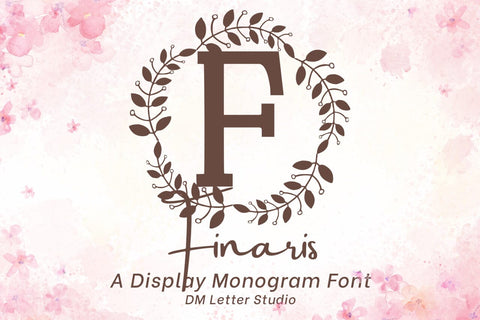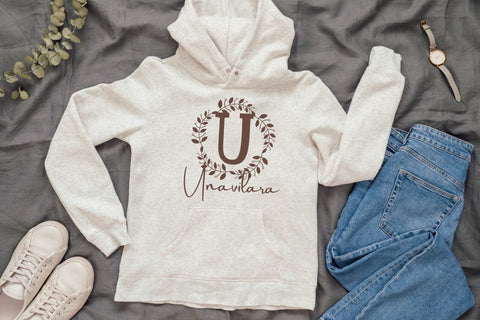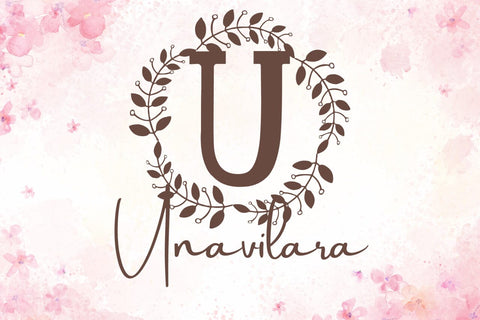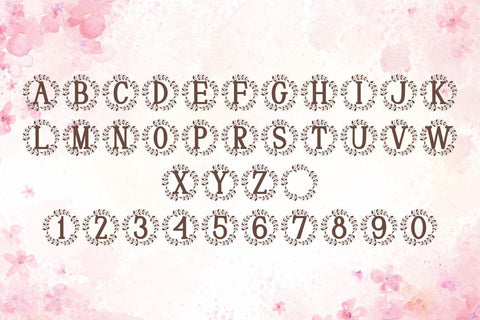
Finaris Monogram Font
Meet Finaris, the Monogram Font
Finaris Monogram Font turns simple initials into refined emblems that read fast at any size. Strokes feel smooth and confident. Counters stay open, so tiny tags and foil seals look crisp. Use it for wedding suites, boutique logos, keepsake gifts, and premium packaging. Moreover, Finaris pairs beautifully with modern serifs and clean sans fonts, so your layouts feel elegant with little effort.
Where the monogram font shines
Set single, double, or triple initials for logos, seals, menus, and place cards. Then frame them with laurel rings, oval borders, or thin rules to echo the graceful forms. Since proportions favor symmetry, you can build neat compositions in minutes. As a result, your thumbnails stand out on crowded marketplaces and your listings stay consistent across products. Plus, Finaris scales smoothly from jewelry cards to venue signage.
Fast setup, polished results
Design tips for Finaris Monogram
Keep initials large and let white space breathe. Pair the headline monogram with a quiet serif or humanist sans for supporting text. Add micro shadows, a fine inner stroke, or a delicate frame for depth. Because the structure is airy, textured papers and metallic accents raise perceived value. However, keep wording short so the monogram remains the hero.
Select stylistic alternates for key letters
Curves tuned for foil, letterpress, engraving, laser, and clean vinyl cutting